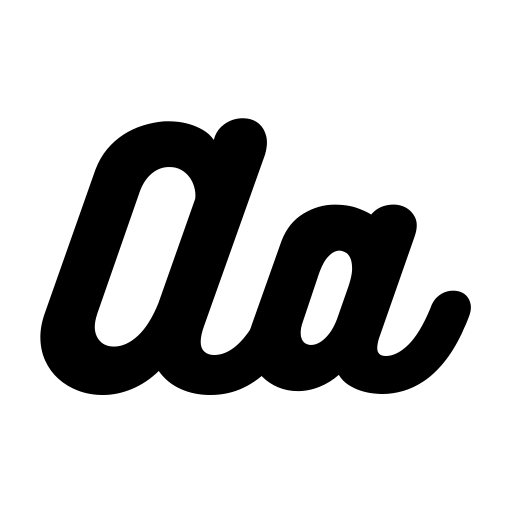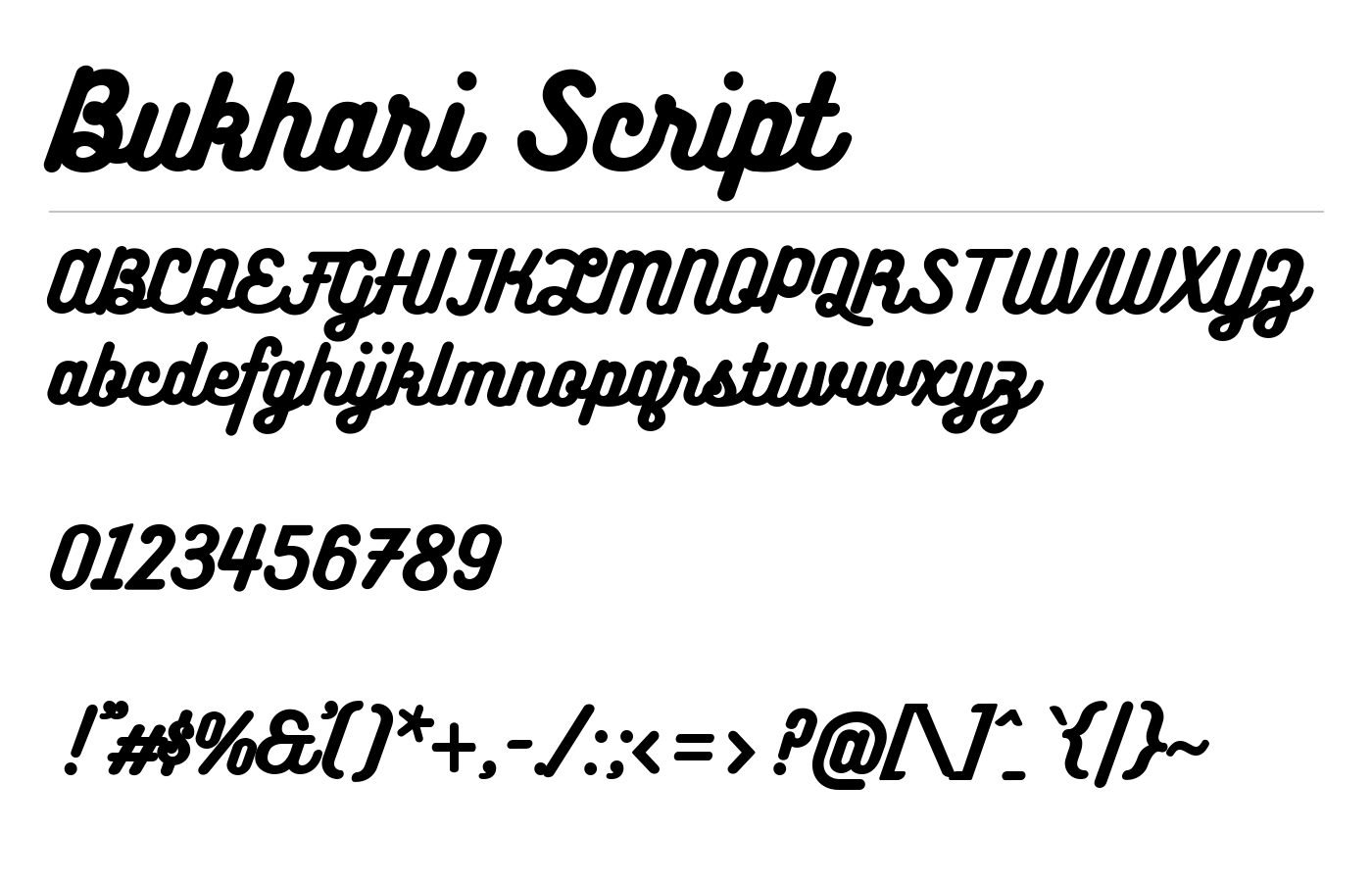
Bukhari Script is a bold, rounded script font with a lively and friendly personality. Its connected, cursive letterforms feature a moderate slant and smooth strokes with a consistent thickness, making it highly legible and inviting for casual, modern designs. This font works wonderfully for branding, packaging, and headlines where a warm, approachable, yet polished look is desired.
Bukhari Script Font
About Bukhari Script Font